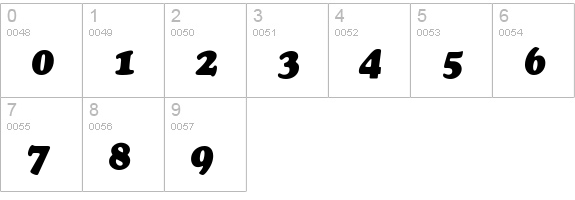
AGCooperCyr Italic is a distinctive, italic variant in the AGCooperCyr typeface family \xE2\x80\x94 well suited to design and typography projects.
AGCooperCyr Italic font exudes elegance and sophistication with its graceful slanted design. This italic typeface boasts a timeless appeal, making it perfect for adding a touch of refinement to any project. Its sleek and stylish curves lend a sense of fluidity to the text, creating a captivating visual impact. And the best part? AGCooperCyr Italic font is completely free to download at FontsMarket.com! Whether you're working on a personal project or a professional design, this font is a versatile choice that will elevate your work to new heights. Don't miss out on the opportunity to enhance your creations with this exquisite typeface, available for free at FontsMarket.com.